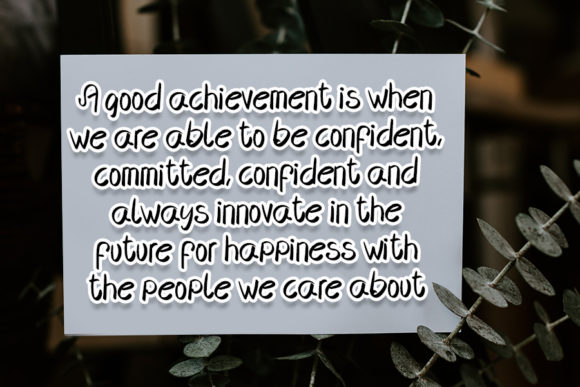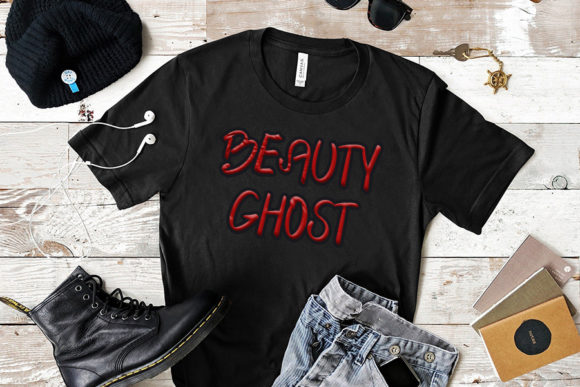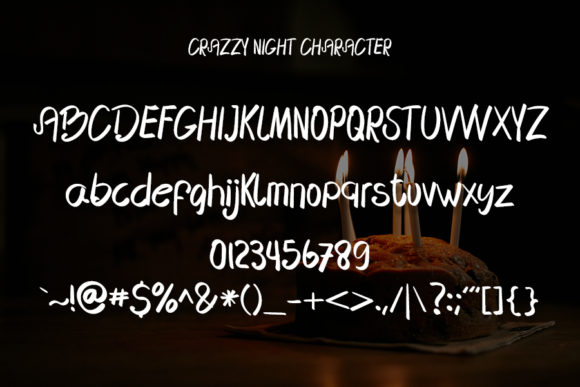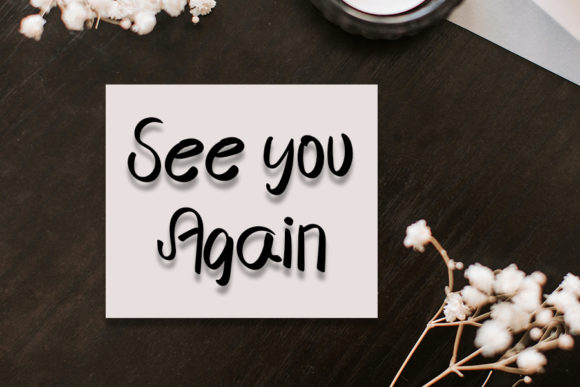
Crazzy Night Font: Add a Touch of Whimsy to Your Designs
Are you tired of using the same old fonts in your designs? Do you want to add a touch of personality and whimsy to your projects? Look no further than the Crazzy Night Font! This relaxed and casual display font is perfect for designers and crafters who want to add a bit of quirkiness to their work.
What is Crazzy Night Font?
Crazzy Night Font is a unique and eye-catching display font that is sure to brighten up any design. With its whimsical and quirky style, this font is perfect for adding a touch of personality to your projects. Whether you’re working on a logo, a poster, or a social media graphic, Crazzy Night Font is sure to make your design stand out.
Key Features of Crazzy Night Font
- Relaxed and Casual: Crazzy Night Font has a relaxed and casual vibe that’s perfect for designs that need a bit of personality.
- Whimsical and Quirky: This font has a playful and quirky style that’s sure to add a touch of whimsy to your designs.
- Display Font: Crazzy Night Font is a display font, making it perfect for headlines, titles, and other large text elements.
- Easy to Read: Despite its quirky style, Crazzy Night Font is easy to read, making it perfect for designs that need to communicate a message.
How to Use Crazzy Night Font in Your Designs
Crazzy Night Font is a versatile font that can be used in a variety of design projects. Here are a few ideas to get you started:
- Logos: Add a touch of personality to your logo with Crazzy Night Font. It’s perfect for businesses that want to stand out from the crowd.
- Posters: Use Crazzy Night Font to create eye-catching posters that grab attention.
- Social Media Graphics: Add a touch of whimsy to your social media graphics with Crazzy Night Font. It’s perfect for creating engaging and shareable content.
- Invitations: Use Crazzy Night Font to create unique and eye-catching invitations for parties, events, and other gatherings.
Benefits of Using Crazzy Night Font
There are many benefits to using Crazzy Night Font in your designs. Here are a few:
- Unique Style: Crazzy Night Font has a unique and eye-catching style that’s sure to make your designs stand out.
- Versatile: Crazzy Night Font can be used in a variety of design projects, from logos to posters to social media graphics.
- High-Quality: This font is high-quality and designed to look great in any design.
Tips for Getting the Most Out of Crazzy Night Font
Here are a few tips for getting the most out of Crazzy Night Font:
- Use it Sparingly: Crazzy Night Font is a bold and eye-catching font, so use it sparingly to avoid overwhelming your design.
- Pair it with Other Fonts: Pair Crazzy Night Font with other fonts to create a unique and interesting design.
- Have Fun: Most importantly, have fun with Crazzy Night Font! It’s a playful and whimsical font that’s perfect for designers who want to add a bit of personality to their work.
Crazzy Night Font is a unique and eye-catching display font that’s perfect for designers and crafters who want to add a touch of whimsy to their work. With its relaxed and casual vibe, whimsical and quirky style, and ease of use, this font is sure to brighten up any design. Whether you’re working on a logo, poster, or social media graphic, Crazzy Night Font is a great choice. So why not give it a try and see the difference it can make in your designs?